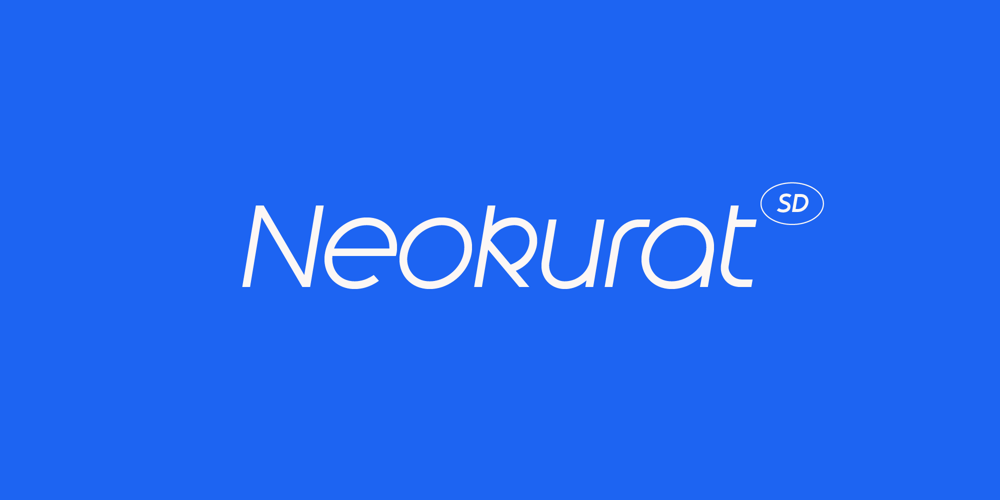
Neokurat SD Font Family was designed by Steve Käsinger and published by Gridlounge. Neokurat SD contains 4 styles and family package options. Neokurat SD is a geometrically display typeface crafted specifically for impactful logos and headline designs. With its dynamic slanted lines and distinctive clarity, it’s perfect for designers seeking a modern yet sophisticated font. Neokurat SD brings a subtle refinement to any project, making it suitable for both print and digital applications. This version combines the iconic design of Neokurat with the lightness and dynamism of an italic style, available in a range of weights.